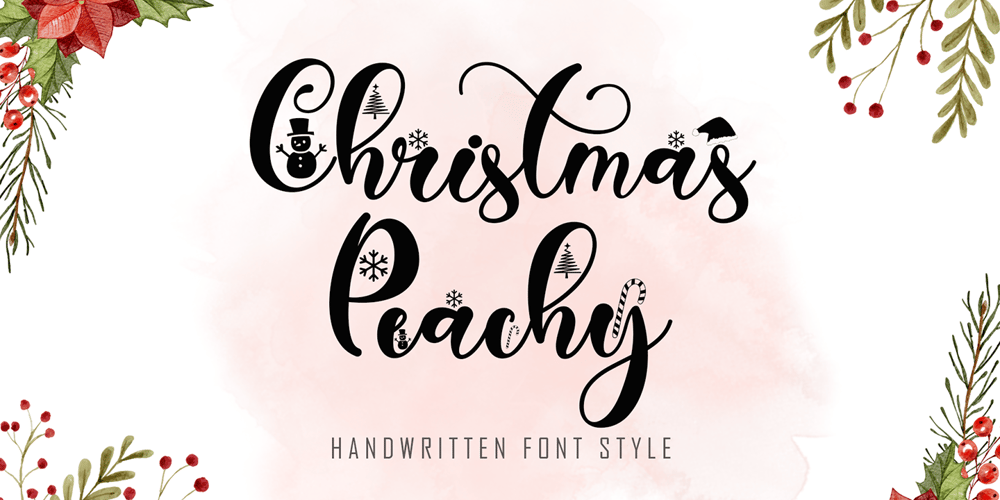
Christmas Peachy
Christmas Peachy font
Christmas Peachy Font Family was designed by Isroni Yoga Prasetya and published by Yoga Letter. Christmas Peachy contains 1 styles and family package options. Christmas Peachy is a charming and festive handwritten font adorned with delightful Christmas ornaments. Its elegant strokes and decorative accents bring a touch of holiday magic to your design projects, making it perfect for creating warm and inviting Christmas-themed materials.